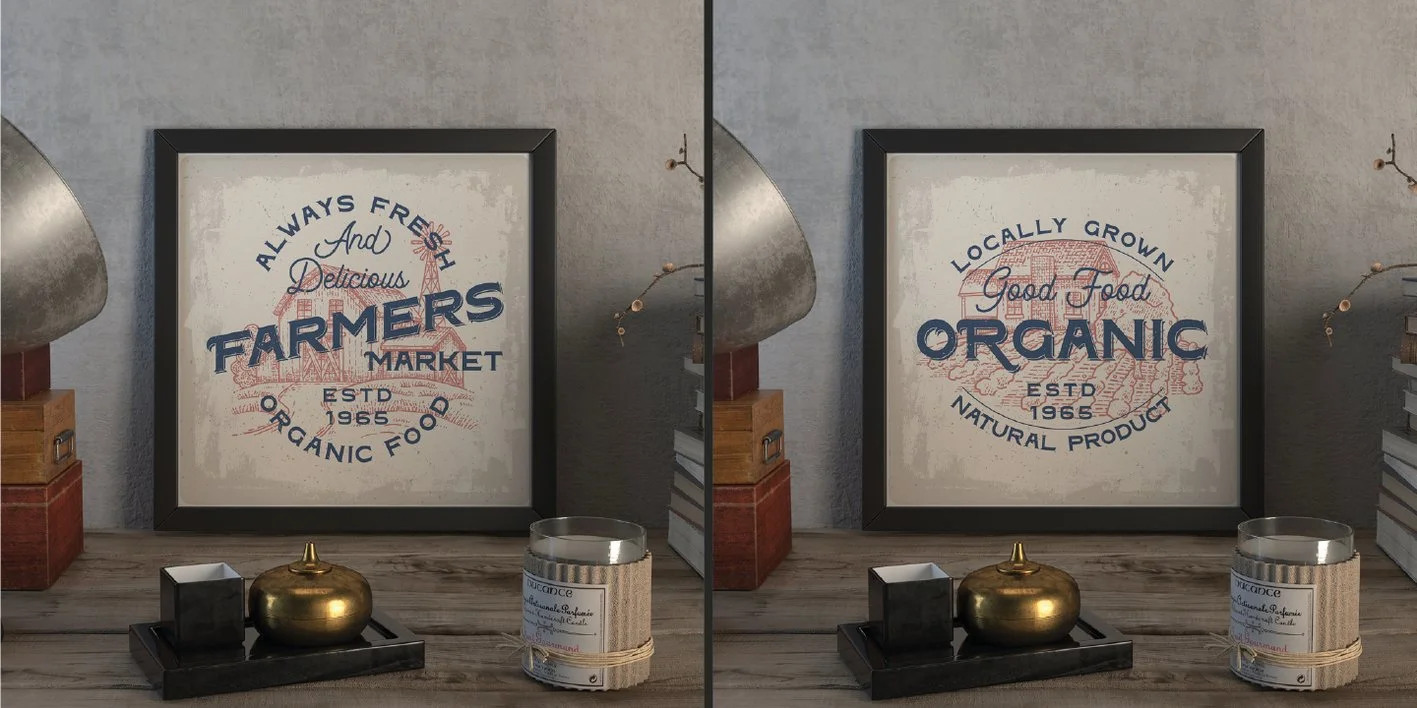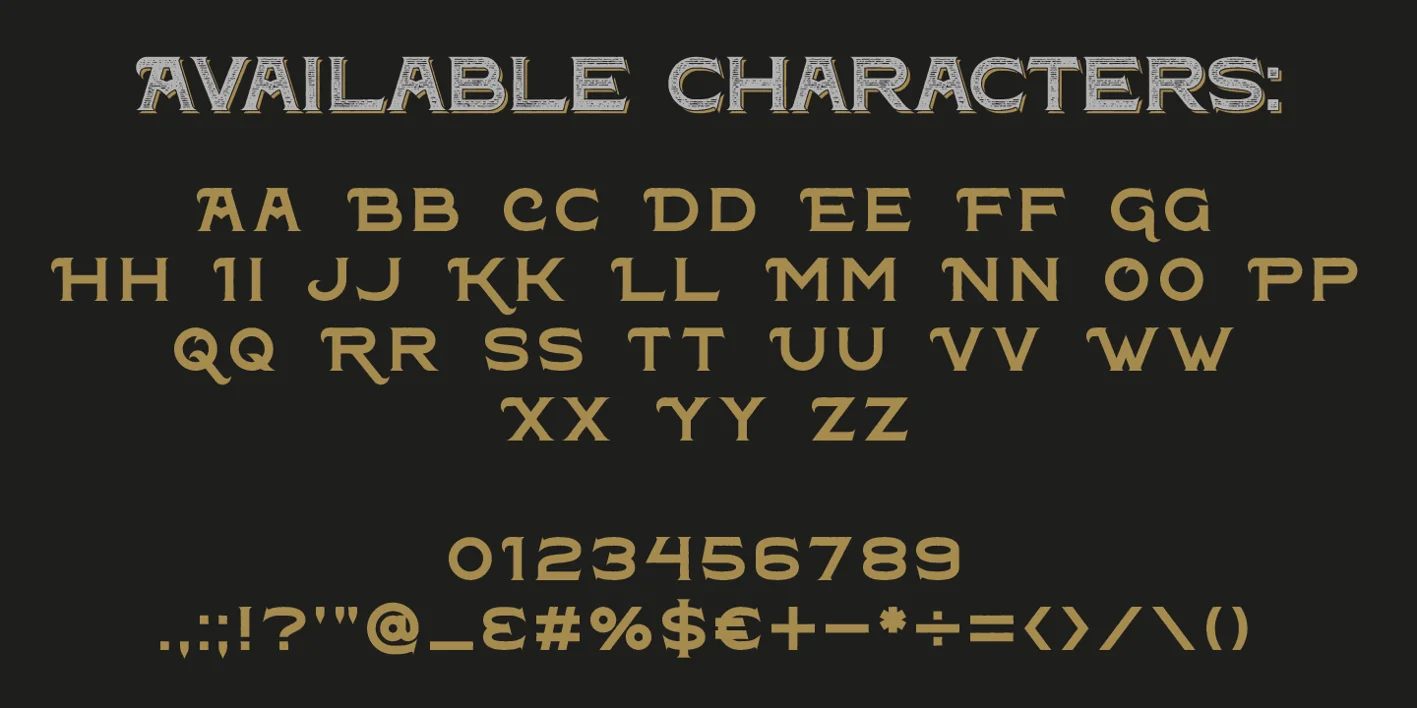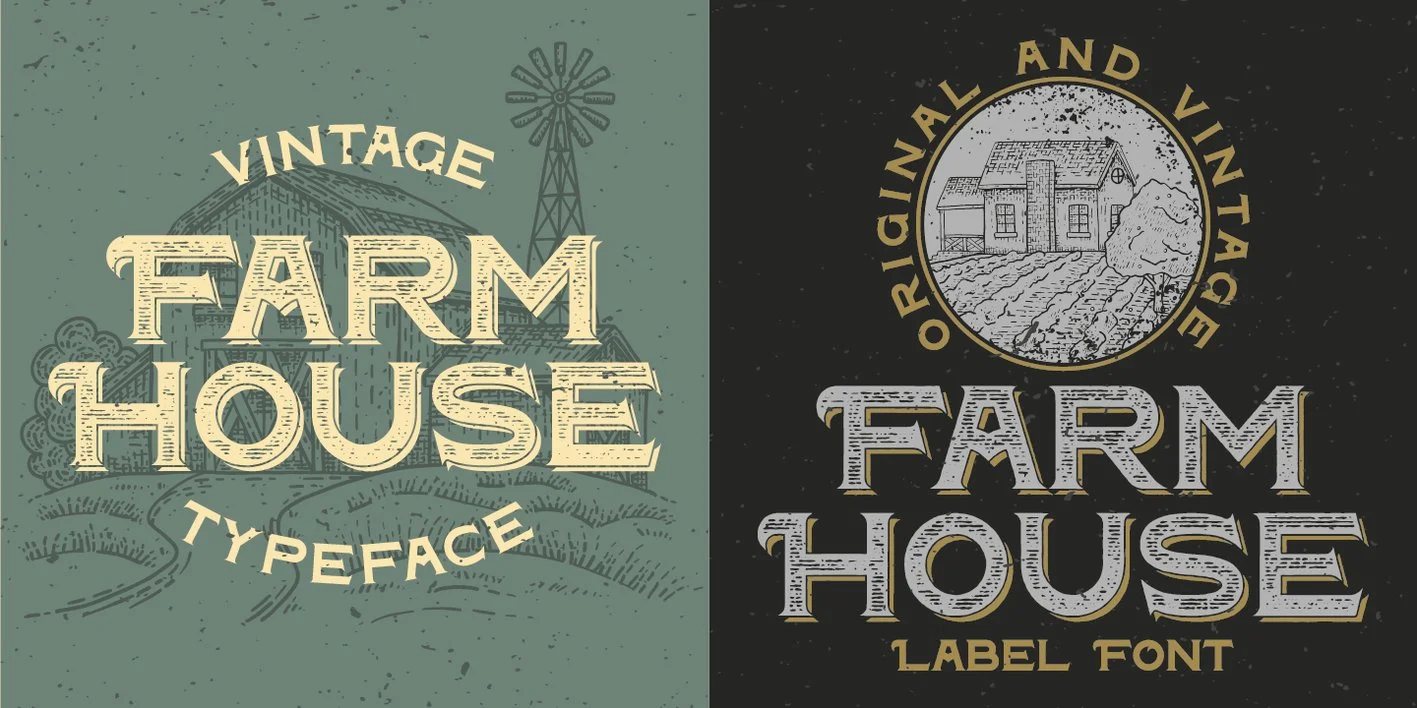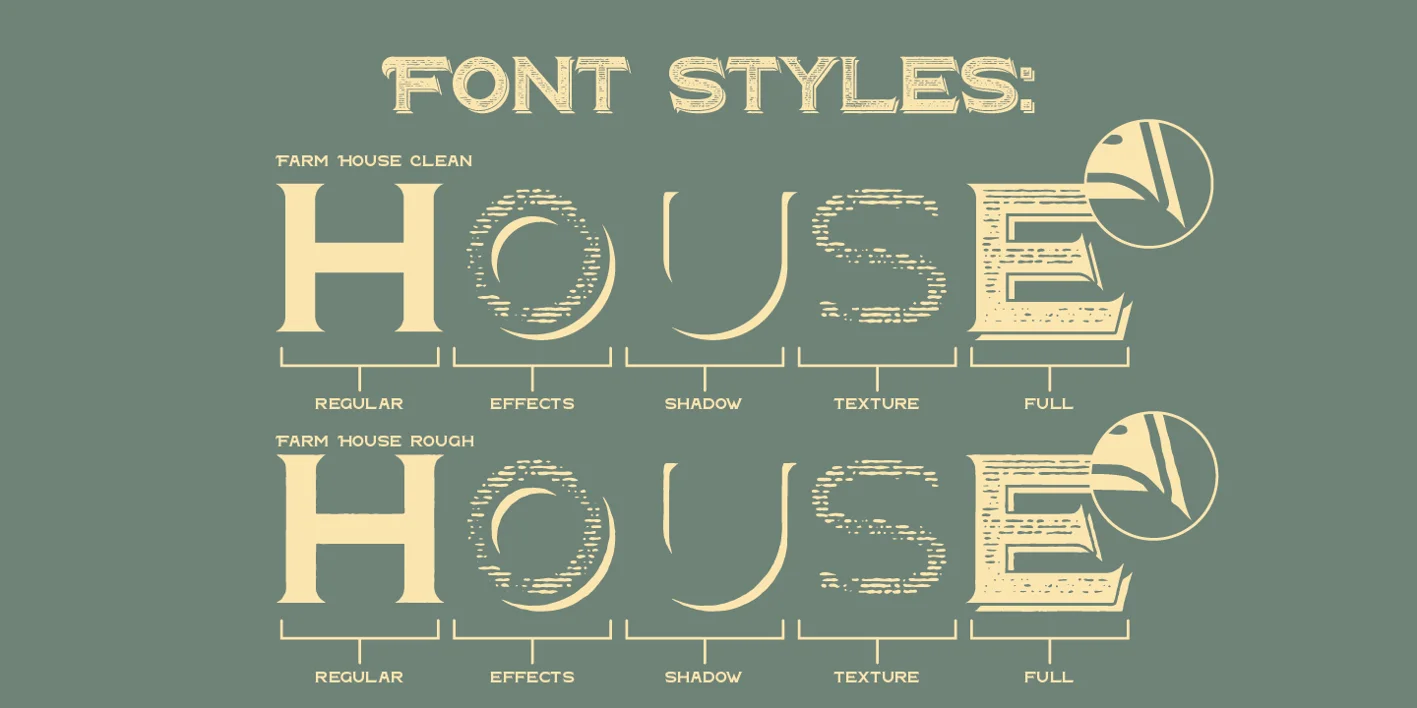
Farm House Font
Few typefaces manage to balance optical balance across all weights with genuine day-to-day practicality. Farm House is one of them. The typeface brings a versatile sensibility to a broad range of creative disciplines, with controlled contrast that rewards close inspection that holds up whether the work is print-first or screen-first.
In practice, Farm House proves particularly effective for signage systems, social media graphics, annual reports, advertising campaigns, logo design. Designers reaching for it find that the type decisions feel resolved rather than laboured — a useful quality when client timelines are tight.
The range of applications extends to brand identity systems, environmental graphics, packaging design, product labels. That breadth is deliberate: the proportions and spacing were stress-tested across a wide range of mock briefs before the typeface was finalised.
UX designers establishing typographic systems for digital products find Farm House a reliable choice for projects that demand both personality and restraint. The design avoids the self-conscious quirkiness that dates quickly, settling instead for considered distinctiveness that holds up over time.